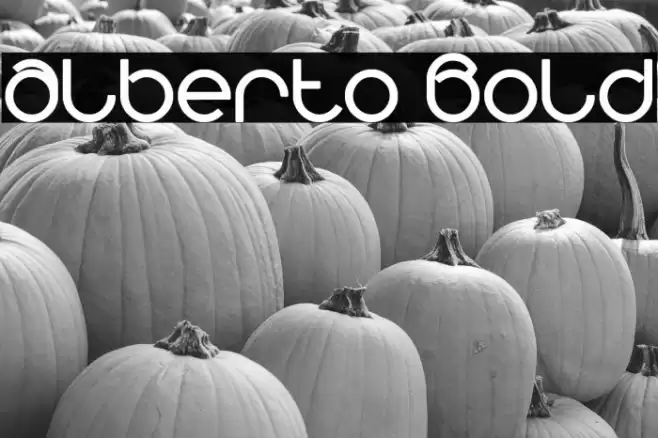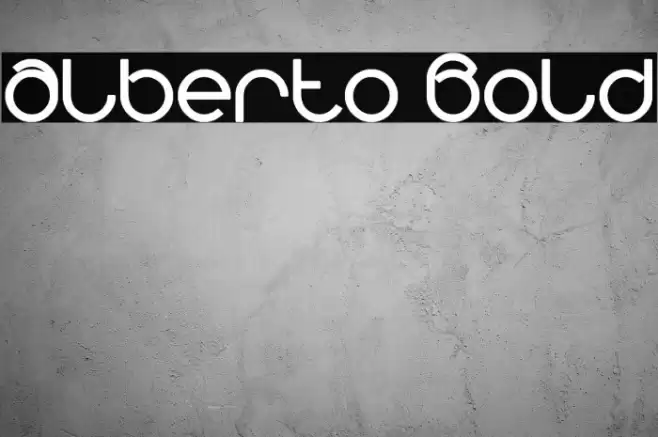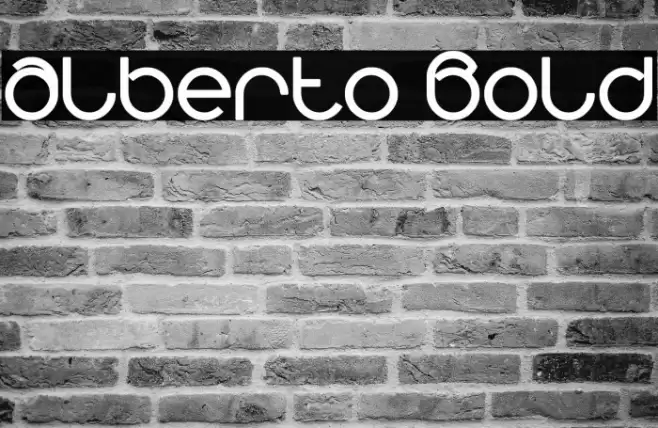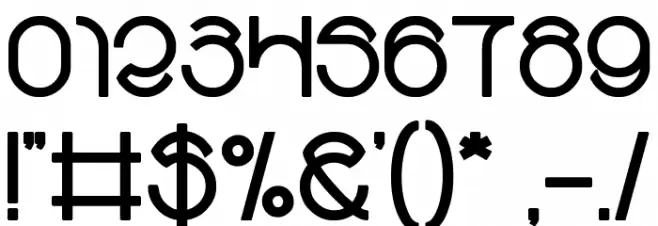
alberto Bold Font
alberto Bold Description
This font features a modern and geometric design with a unique blend of curves and straight lines. The uppercase letters have a distinctive rounded form, while the lowercase letters maintain a consistent style with subtle variations. The numbers are bold and clear, making them easily readable. Special characters are creatively designed, adding a playful touch to the overall aesthetic. The font's uniform stroke width and smooth curves give it a sleek and contemporary appearance, suitable for various design applications.
A modern, geometric font with rounded forms and consistent stroke width from Uncategorized fonts.